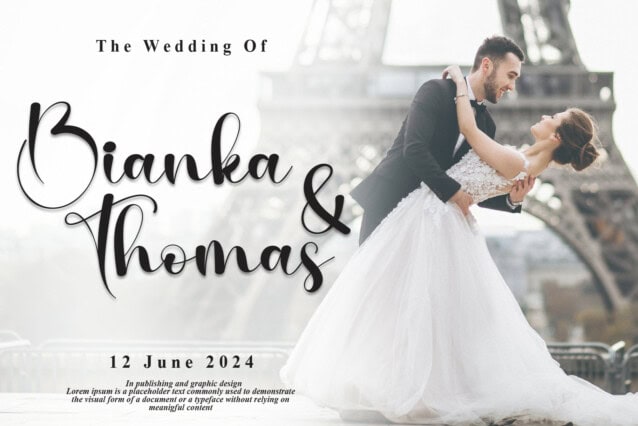
Beautiful Script Font
Beautiful Script Font is a delicate and elegant handwritten font. Its distinct and well balanced letters make this font a masterpiece. Fall in love with its incredibly versatile style and use it to create spectacular designs!